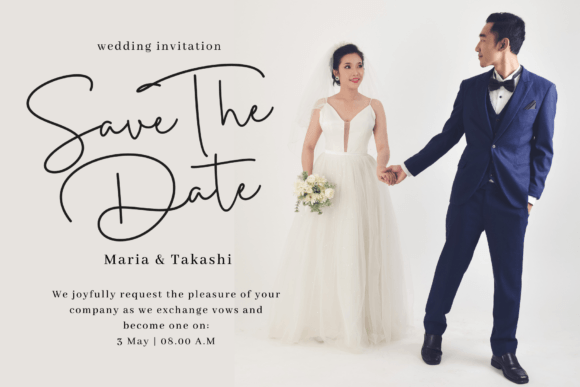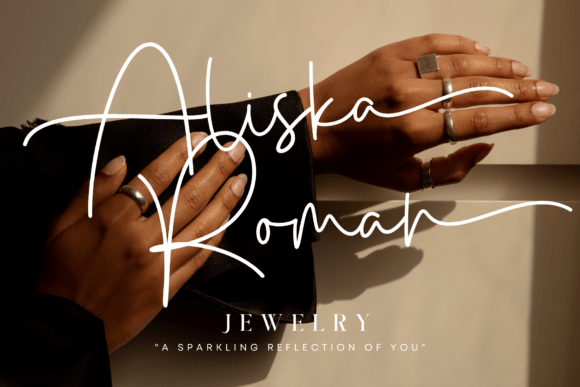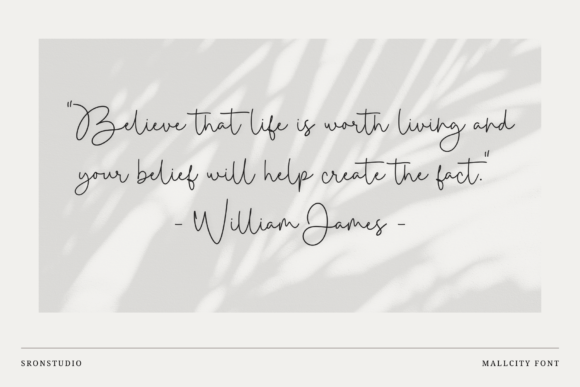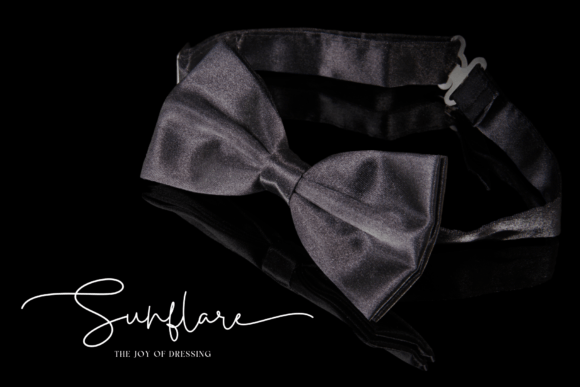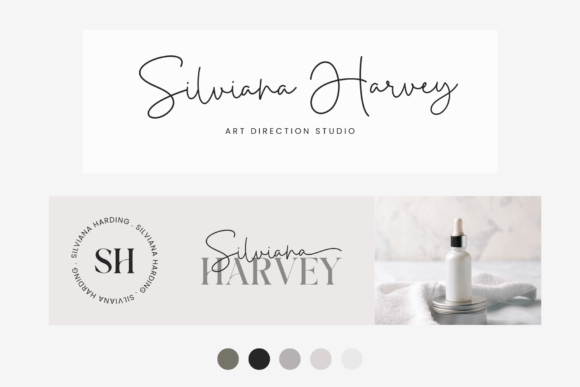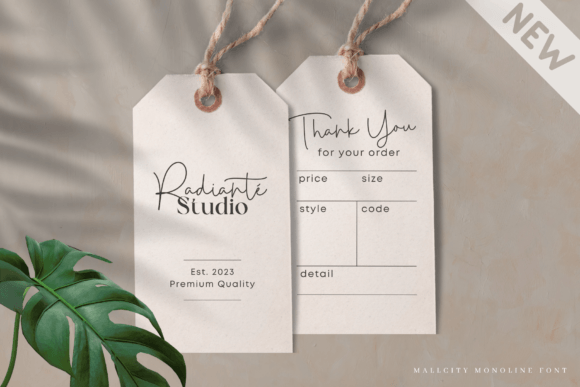
Introduction to Mallcity Font Font
Fonts play a crucial role in design, and the Mallcity Font font is a typeface that brings both character and versatility to any project. Whether you’re working on a branding project, a website, or a print design, the Mallcity Font font offers a unique style that can elevate your work.
Mallcity is a sophisticated script font with intricate alternates and ligatures, perfect for high-end design projects.
Its flowing, curved lines, add a touch of refinement and grace to any text, making it ideal for fashion and luxury brands The fontβs elegant yet modern style is versatile and perfect for those seeking to elevate their design work.
Key Features of Mallcity Font Font
Why Choose Mallcity Font Font?
The Mallcity Font font is more than just a typeface β it’s a design tool that helps you communicate your message with style and clarity. Its unique character set and versatile design make it suitable for a wide range of applications, from elegant invitations to bold headlines.
With its carefully crafted letterforms and balanced proportions, the Mallcity Font font ensures readability and visual appeal across all mediums.
What makes Mallcity Font font special?
The Mallcity Font font stands out with its unique design, exceptional readability, and versatility across various design applications.